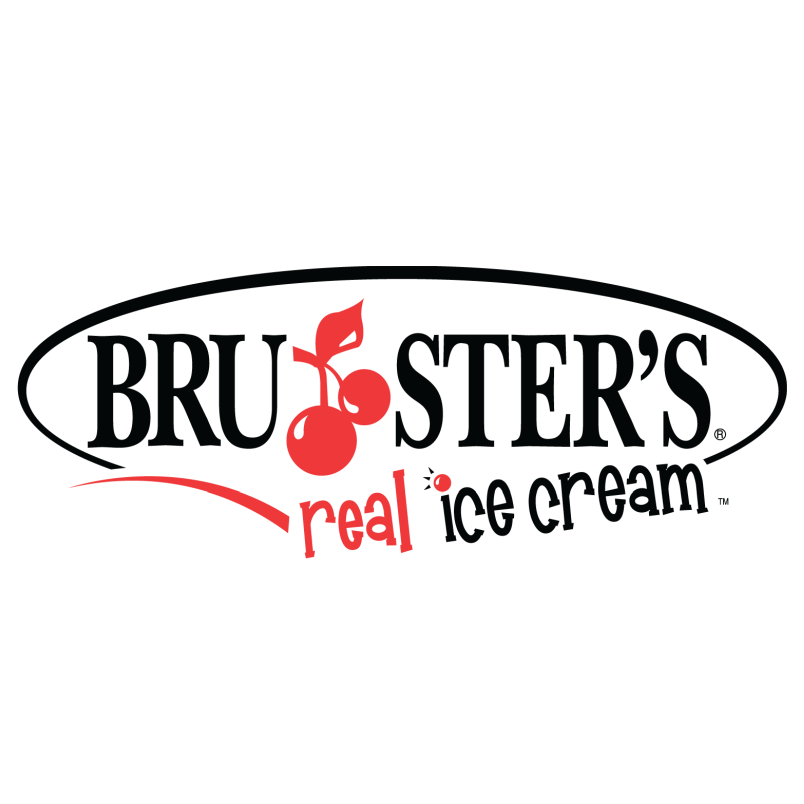
Bruster's Ice Cream Font
Fonts in UseBruster’s Ice Cream is an American chain of ice cream parlors known for their freshly made, handcrafted ice cream in a variety of flavors. Their ice cream is made in-store daily and is free of artificial preservatives and additives.
The primary logo appears to be fashioned using George William Jones' New Baskerville Bold. Additionally, the typography for "real ice cream" closely resembles Fontalicious' Mandingo font, which is available for free download here in the Fonts Used Section.